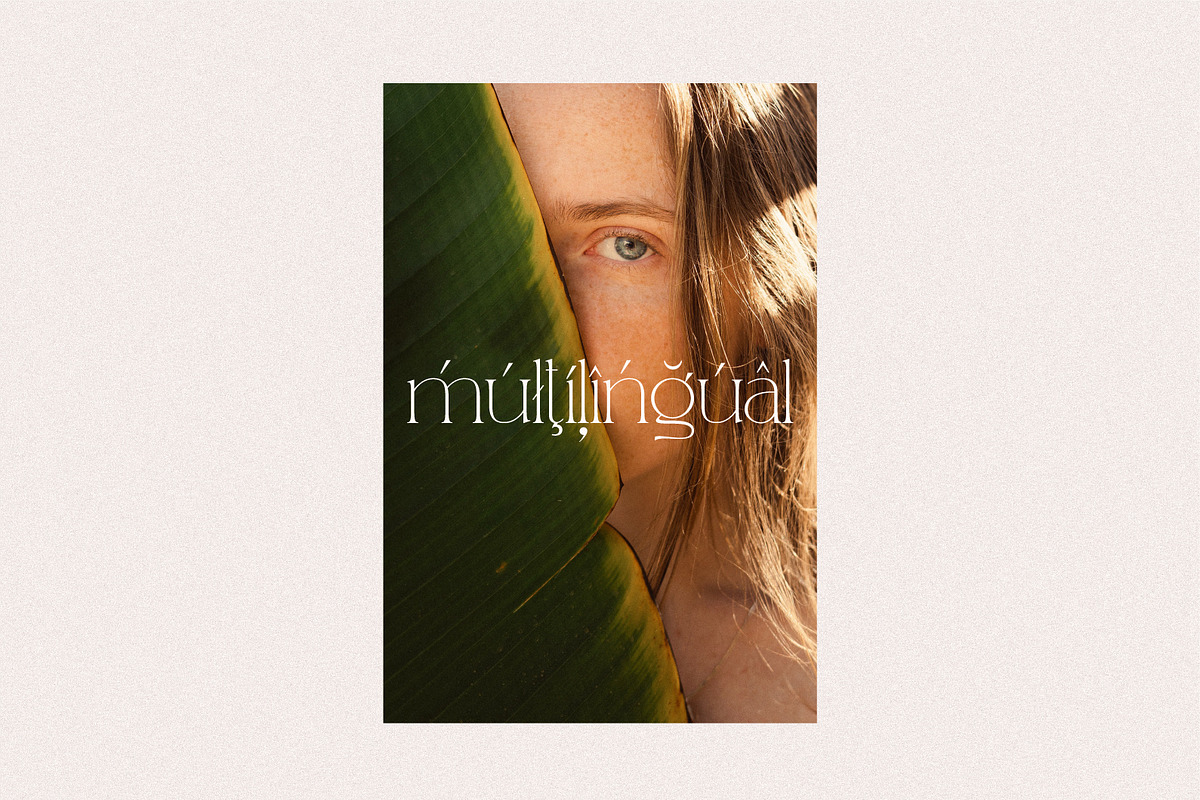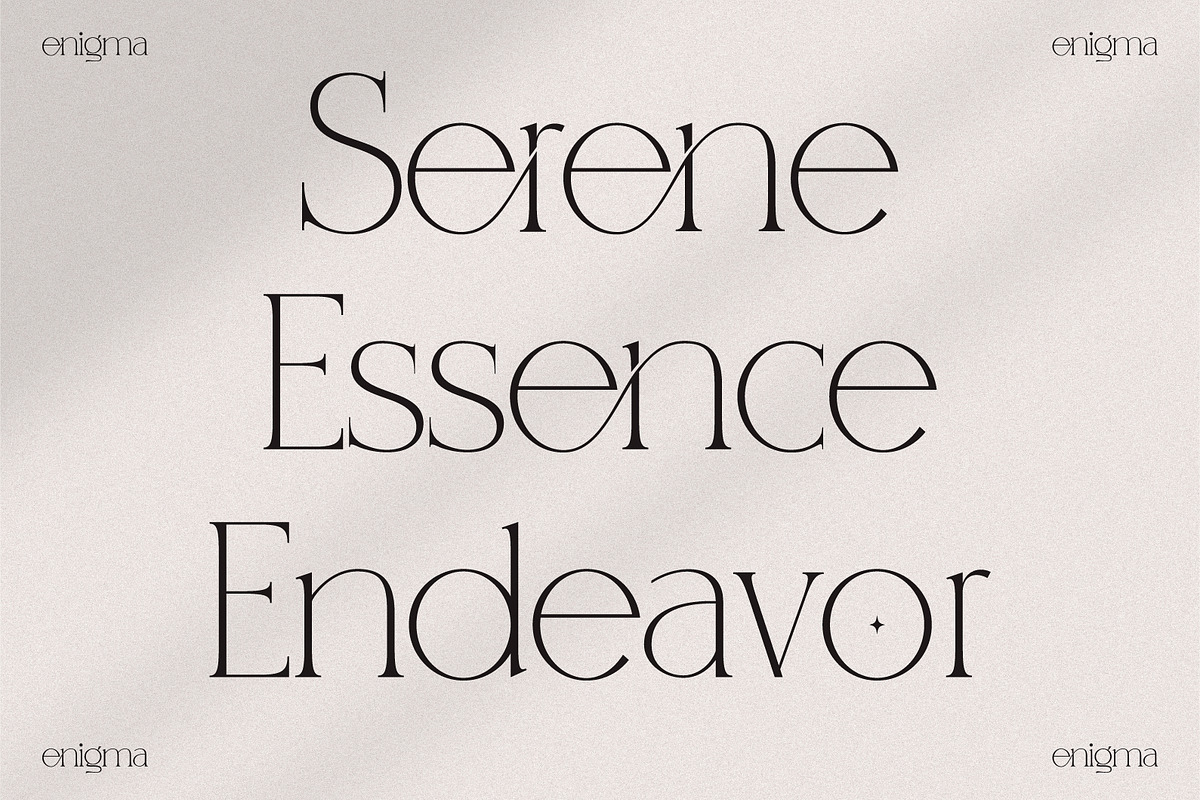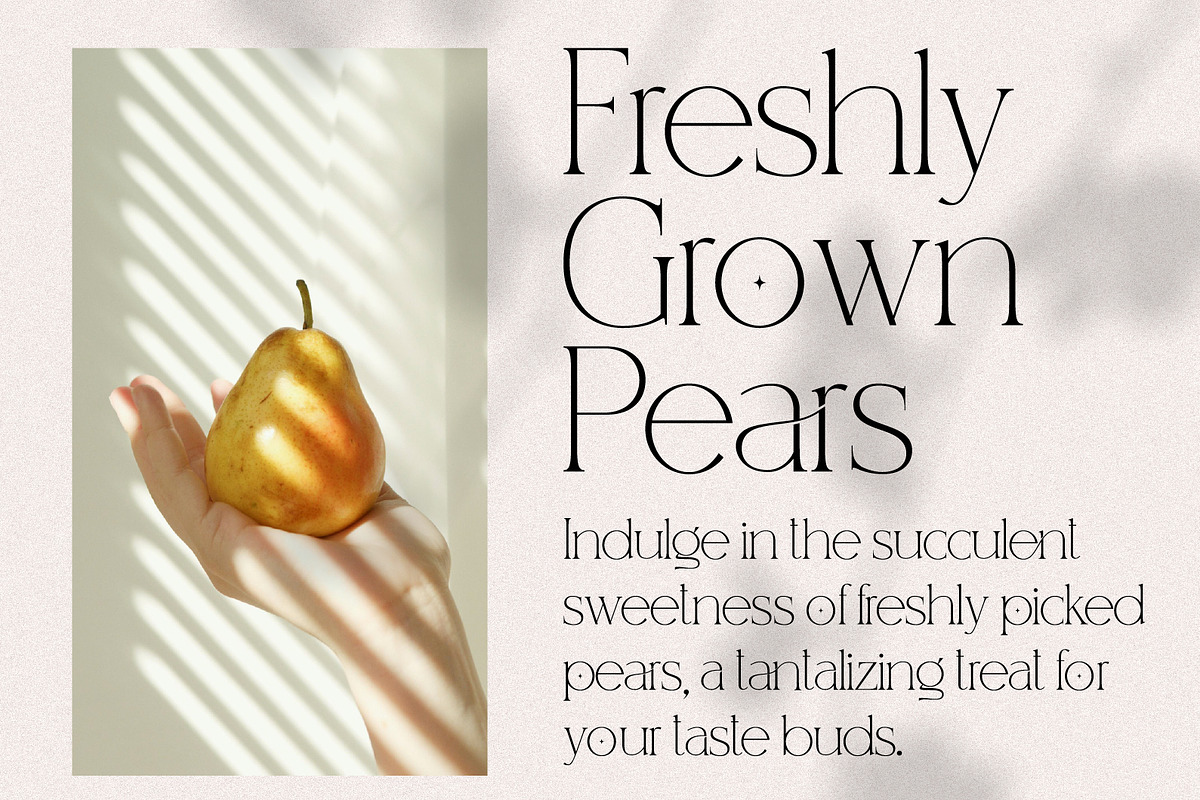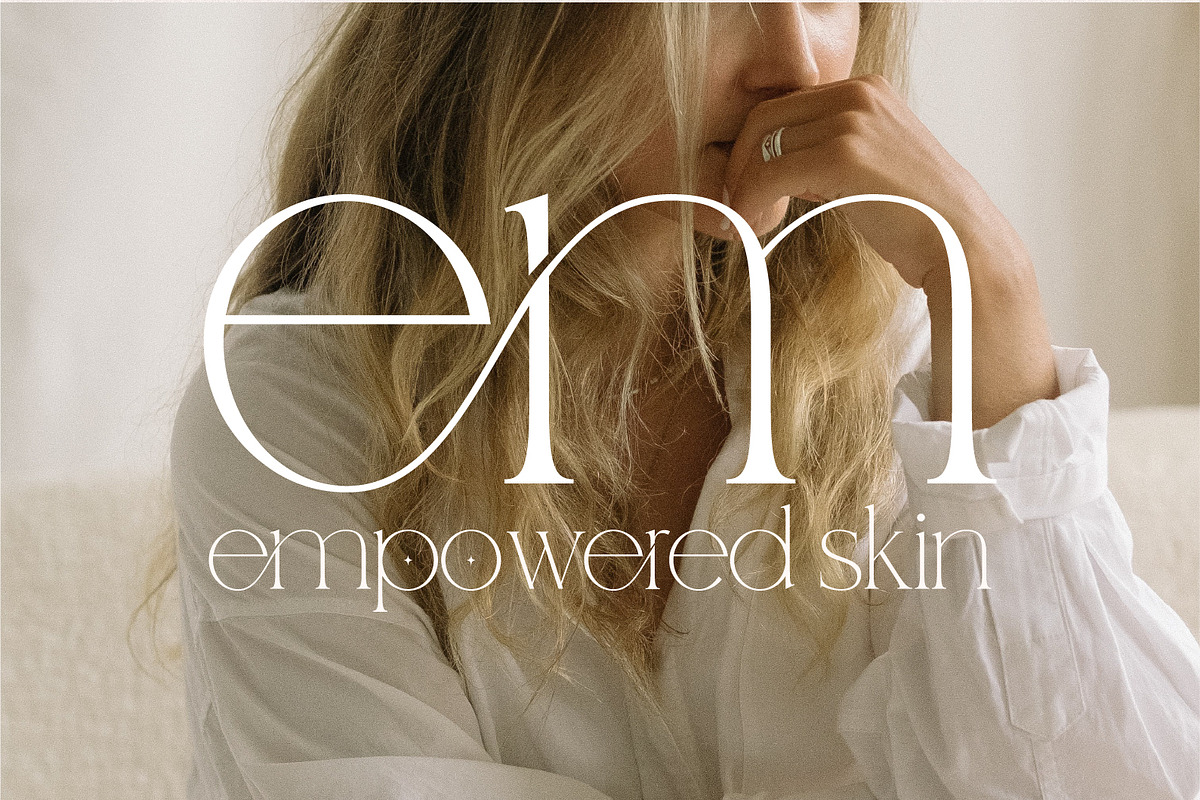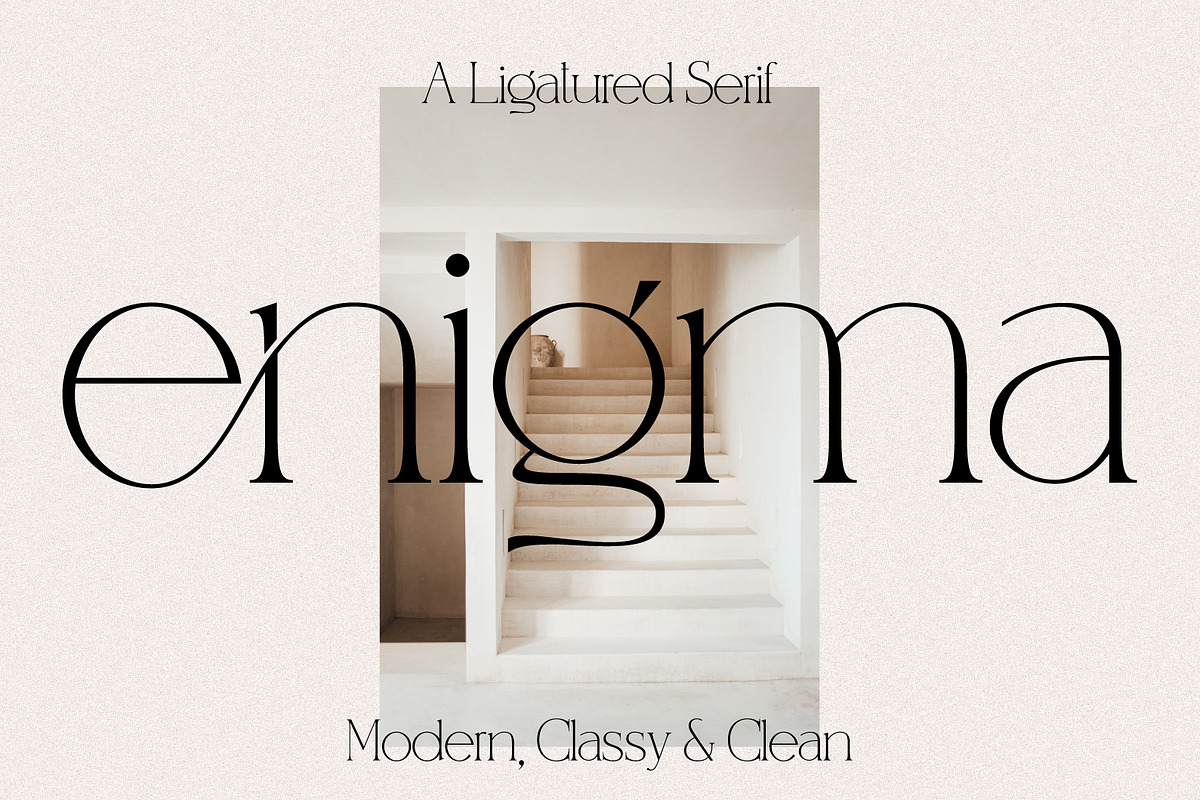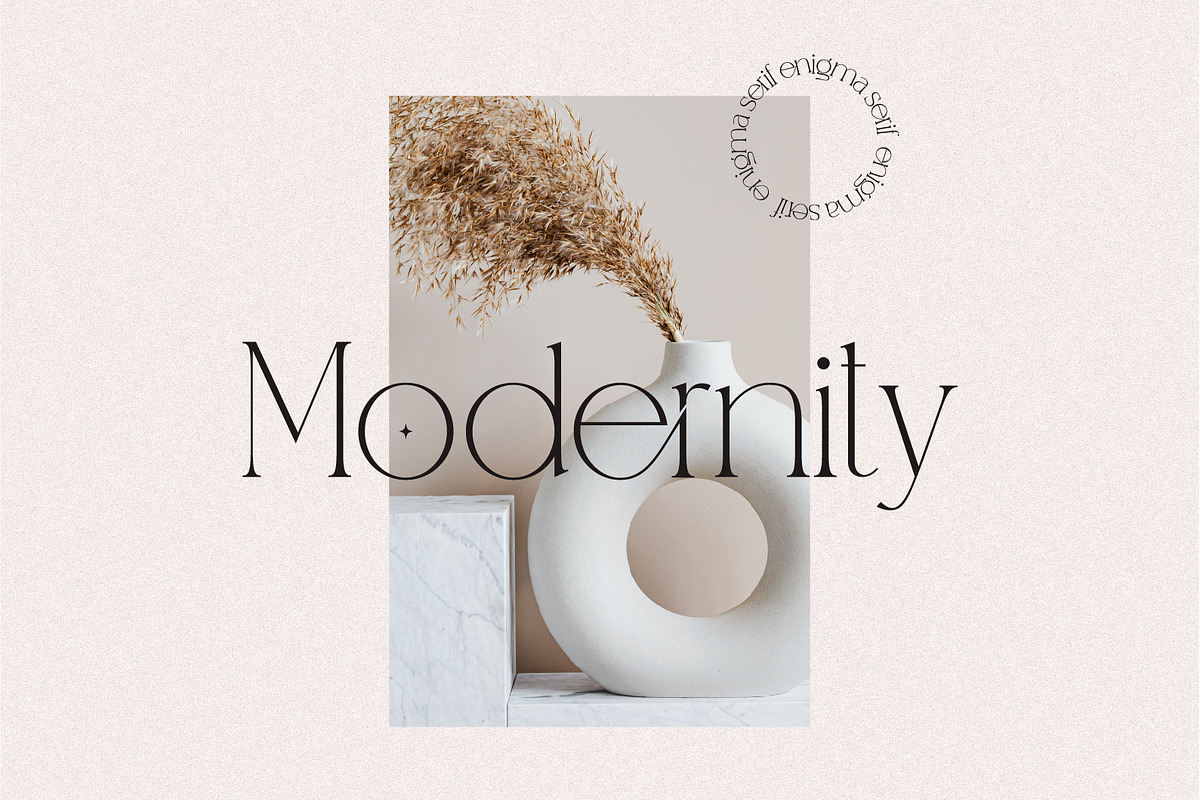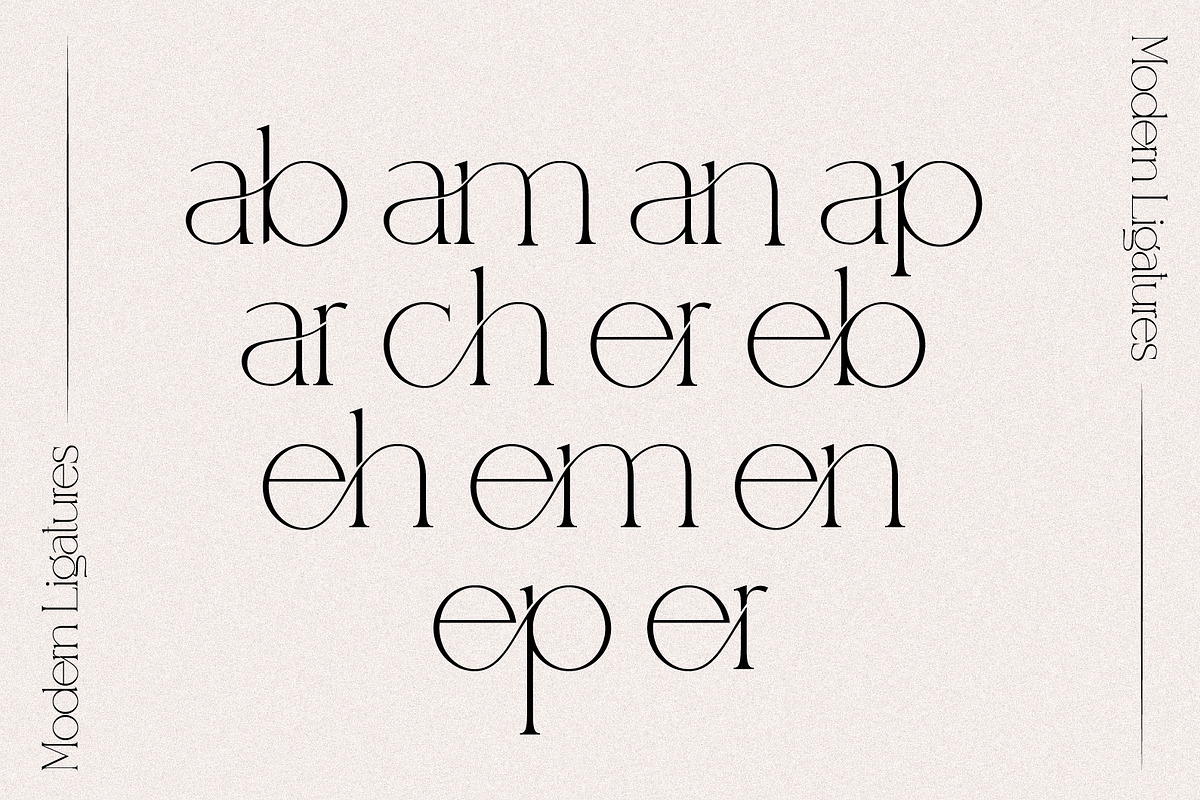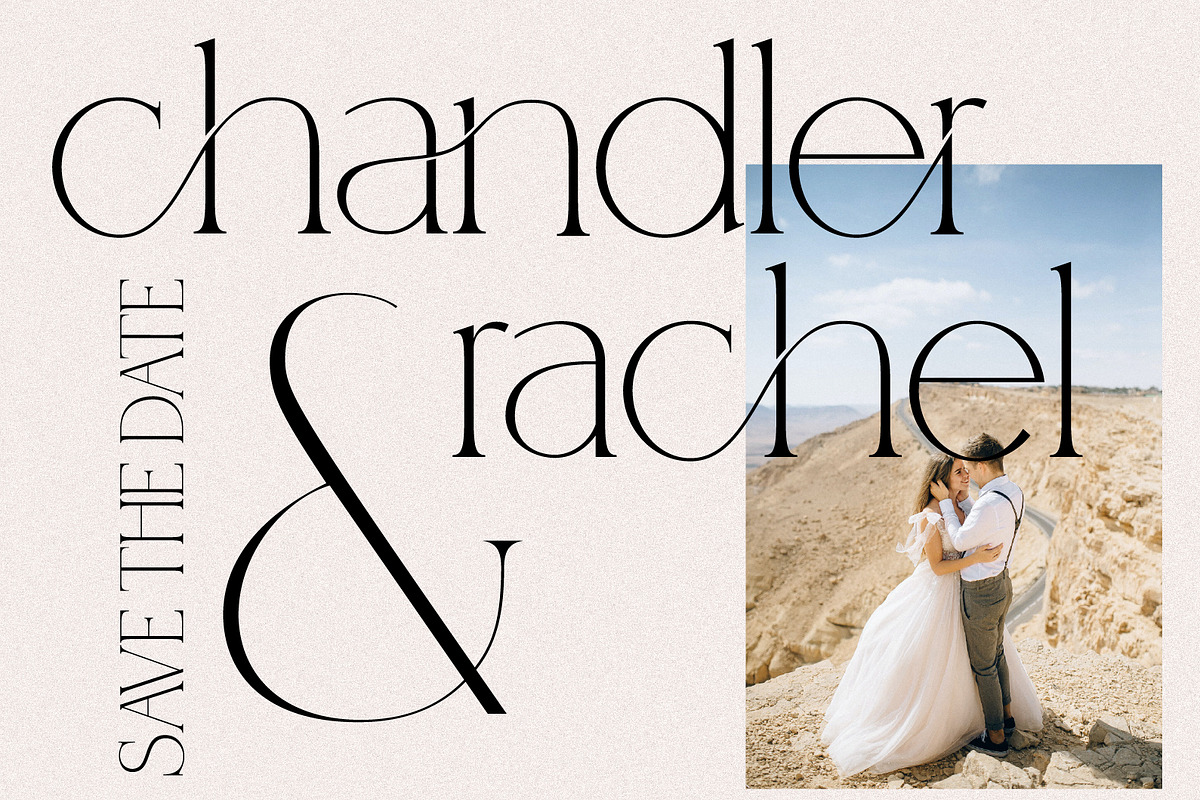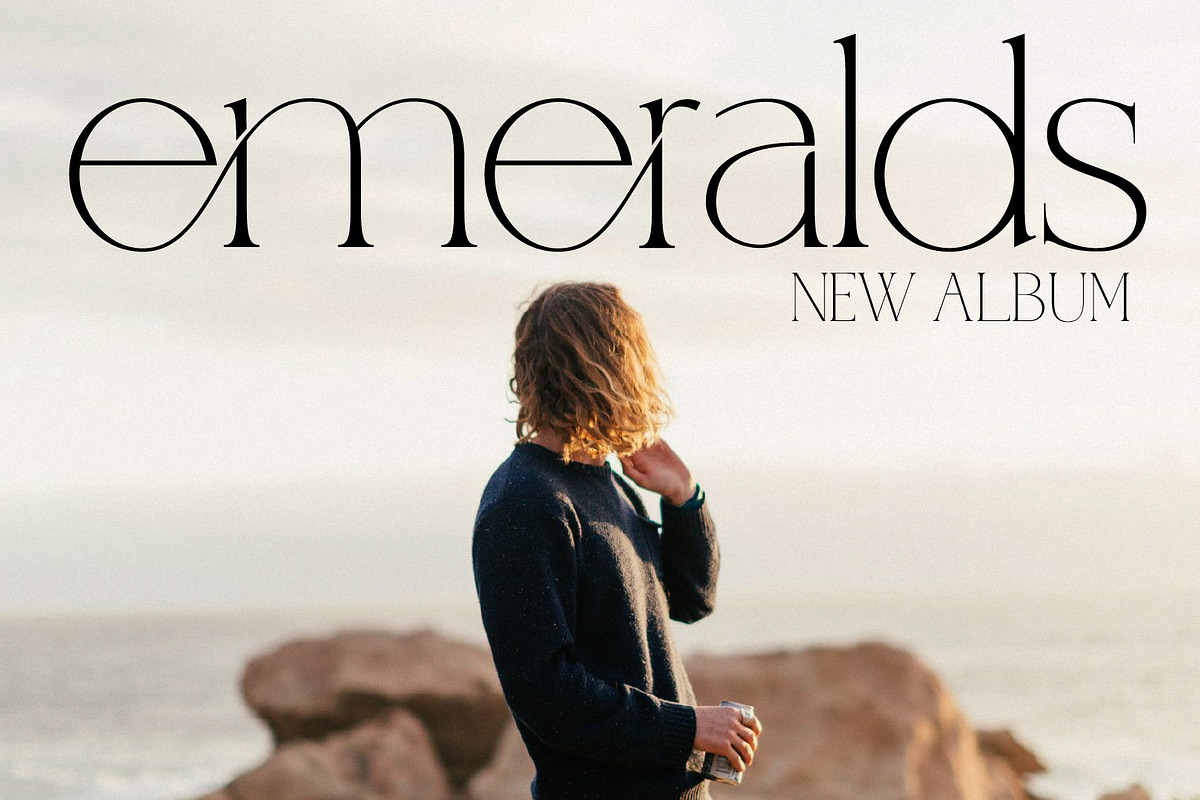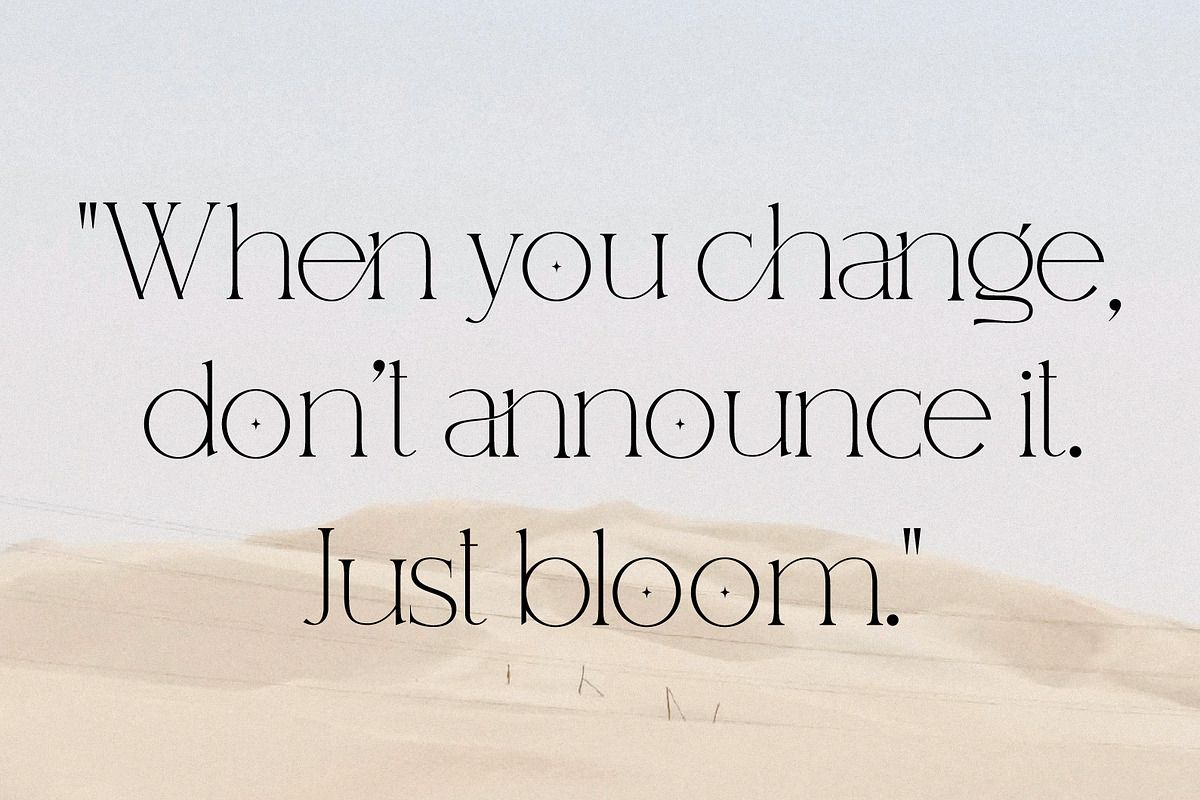
Enigma A Classy Ligatured Serif
Introducing Enigma Serif, a sleek serif with beautiful ligatures, perfect for adding elegance and sophistication to your designs. Its clean, modern style makes it ideal for branding, editorial design, and digital applications.
Embrace the timeless charm of Enigma Serif and elevate your projects to new levels of beauty.